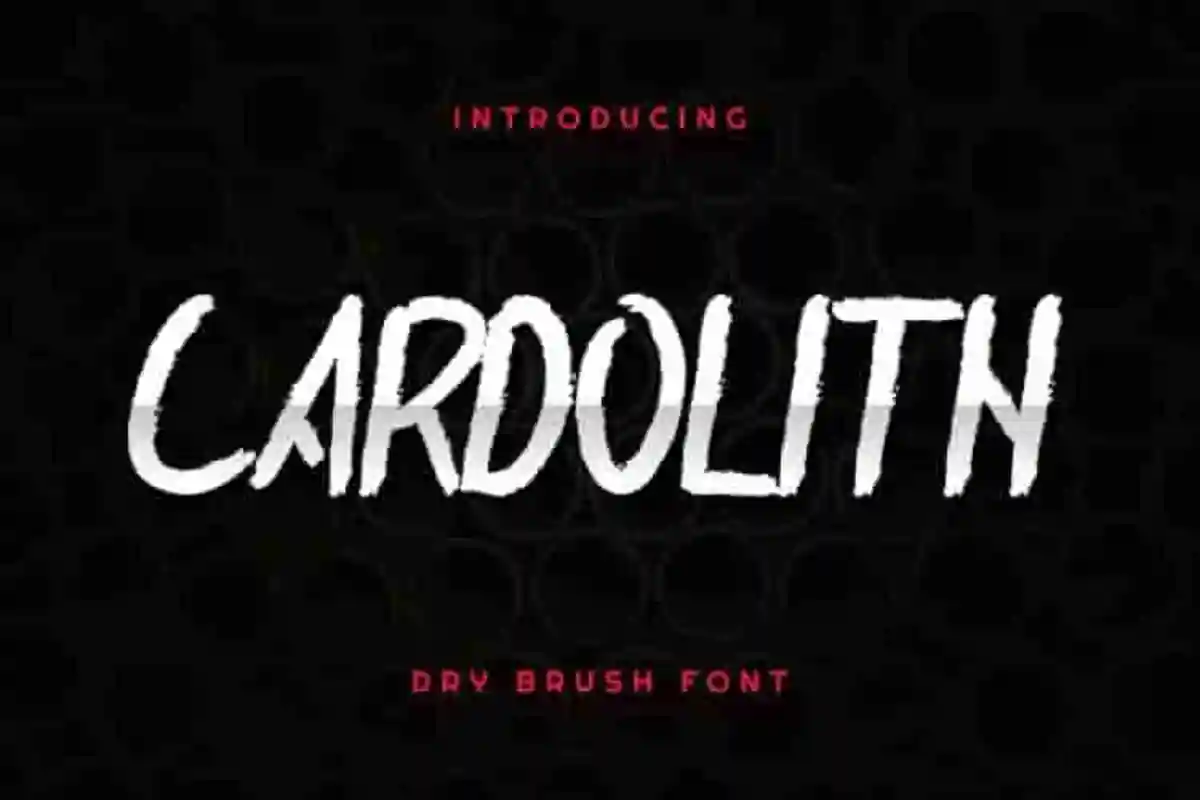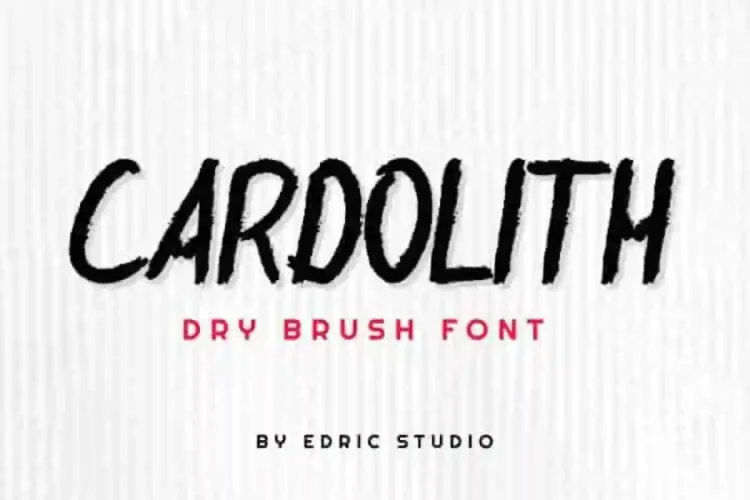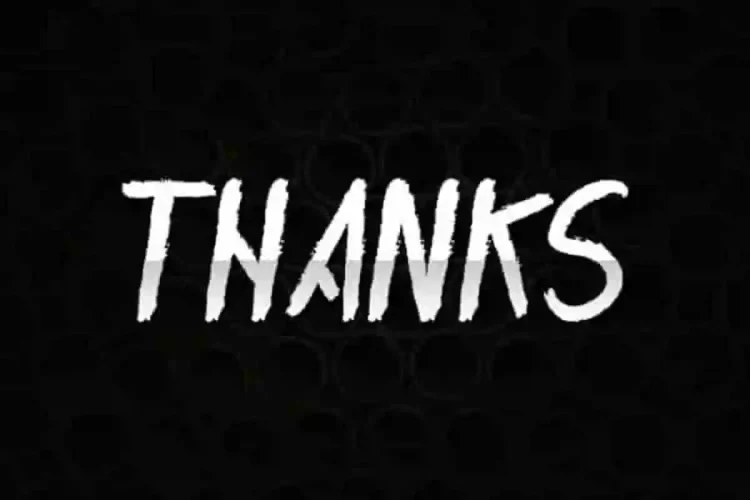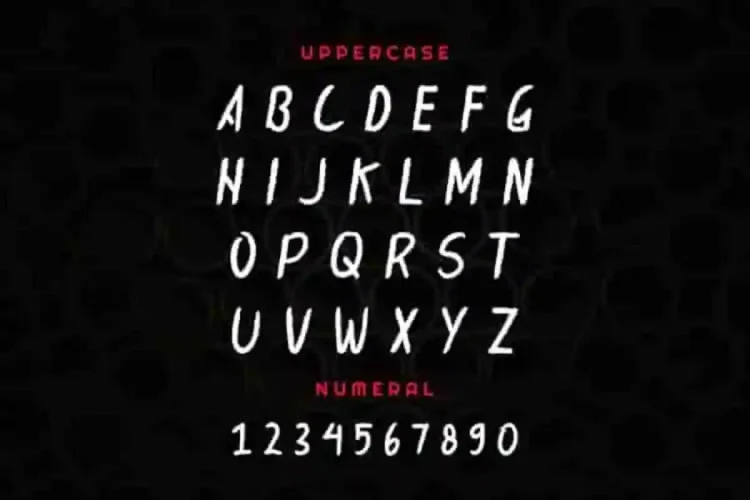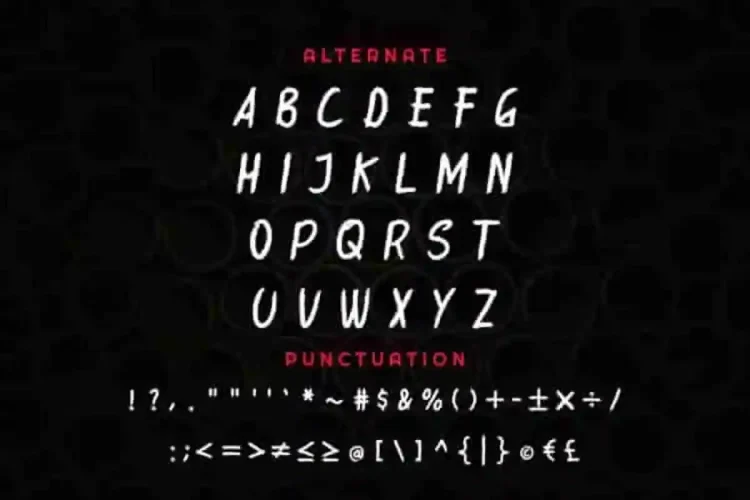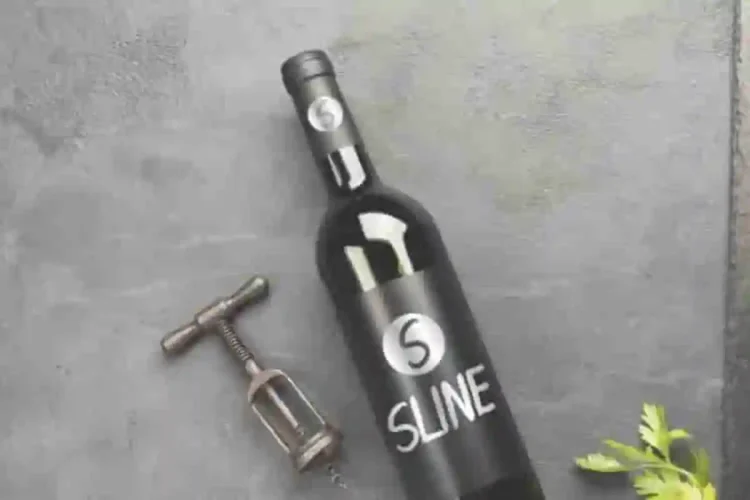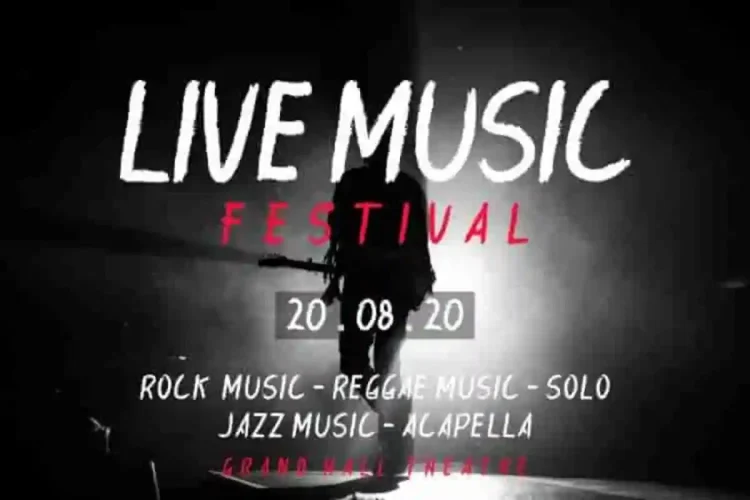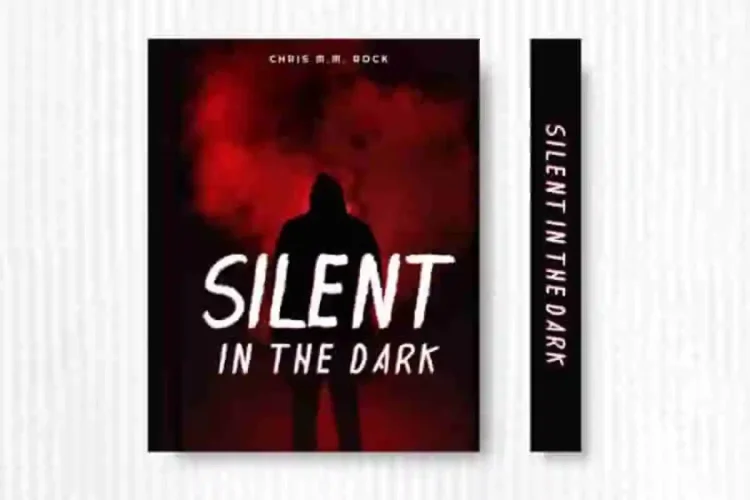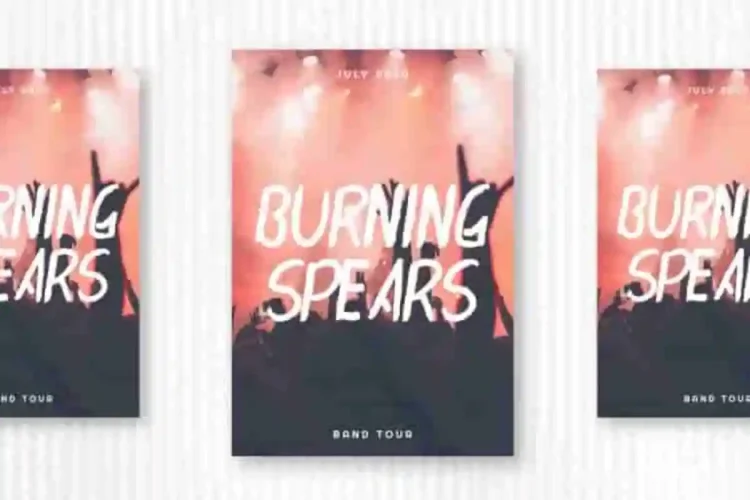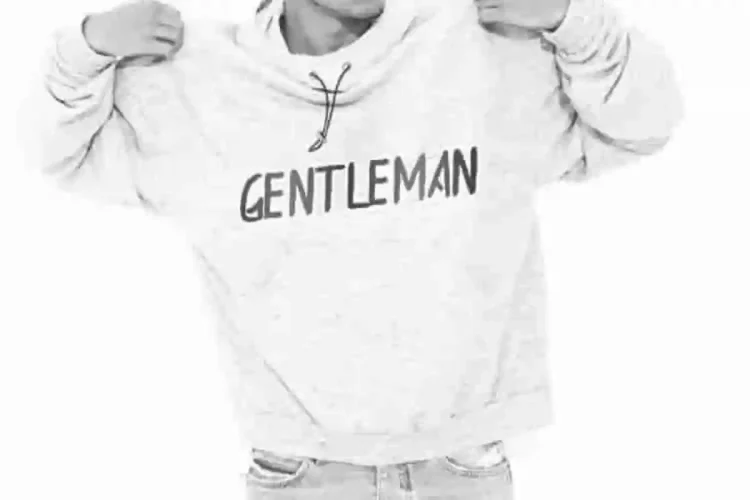
Cardolith Rough Brush Script Font
From EDRIC Studio, in 2020,
Please welcome! Our newest font  : Cardolith Rough Brush Script Font
This is AN EXCLUSIVE display brush font, handcrafted from our Studio here in Garut and Bandung, Indonesia. The artists/designers of this freaking tyeface is Ali and Sarah Suci.
Cardolith Rough Brush Script Font is a rough dry brush decorative typeface with unique style. This font has a stunning characters set, perfectly managed with well spaced and kerning.
Cardolith Rough Brush Script Font will be great for any projects including : branding, logo, stationery, business card, signage, flyer, brochure etc. Almost all industries will be match for this typeface: wedding, events, florist, gardening, makeup artist, travel, hotel, musician etc.